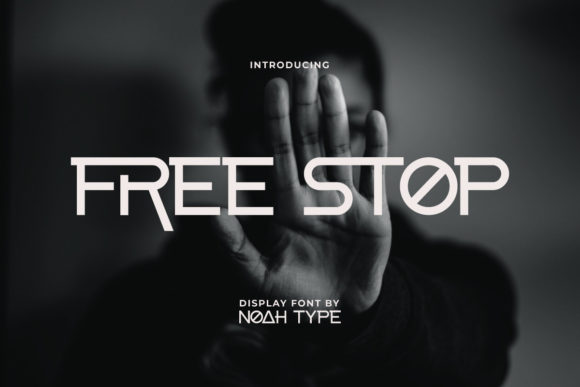
Introducing FreeStop Font, a sans serif masterpiece that will ignite your creativity and elevate your designs to new heights.
FreeStop Font is more than just a font; it's an artistic expression that empowers you to create captivating visuals that speak volumes. Its unique style exudes a modern and sophisticated charm, making it the perfect choice for a wide range of creative endeavors.
Whether you're crafting eye-catching logos, creating stunning posters, or designing packaging that demands attention, FreeStop Font is your ultimate companion. Its versatility knows no bounds, allowing you to effortlessly infuse your projects with a touch of elegance and originality.
Let your imagination soar as you explore the endless possibilities that FreeStop Font offers. Its carefully crafted characters possess an alluring charm that will captivate your audience and leave a lasting impression.
Dive into the world of typography with FreeStop Font and unlock a realm of creative freedom. Experience the power of a font that transforms ordinary designs into extraordinary masterpieces.